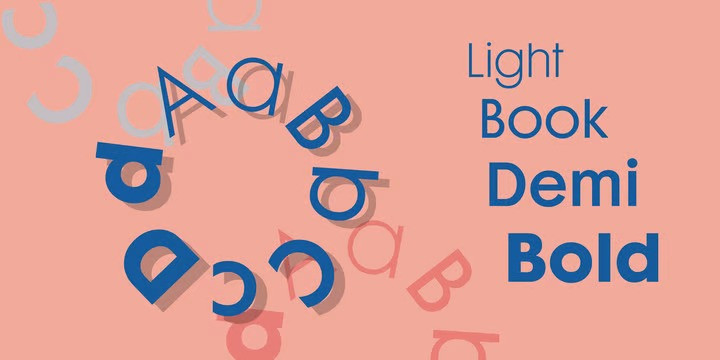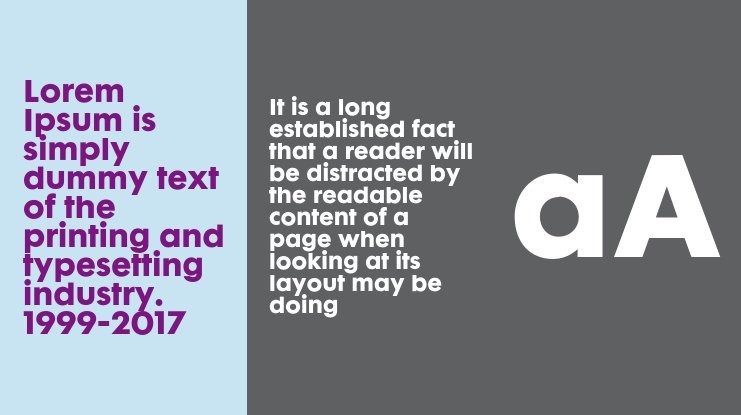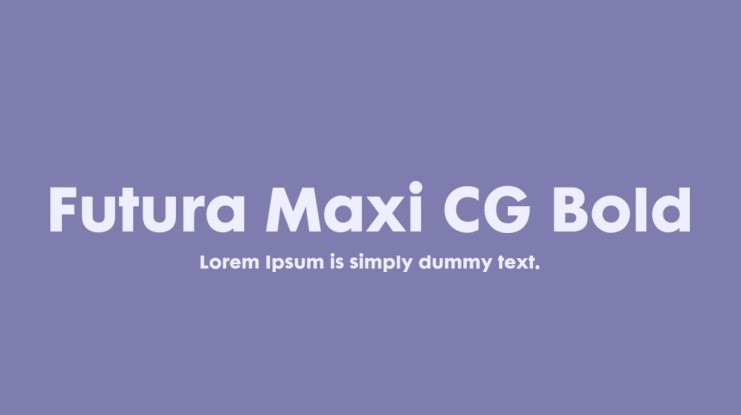
Nickelodeon’s On-Air Font (2009-2017) & LaLiga’s Logotype, Perfectly fit for branding, logo, wedding things, greeting cards, fashion, lookbook, marketing promotion, anytime you want to look fancy elegant but still casual.
Futura Maxi CG Bold Font
| Designer Name: | Nickelodeon's |
| Classification: | Sans Serif Fonts, Style / Aesthetic Fonts |